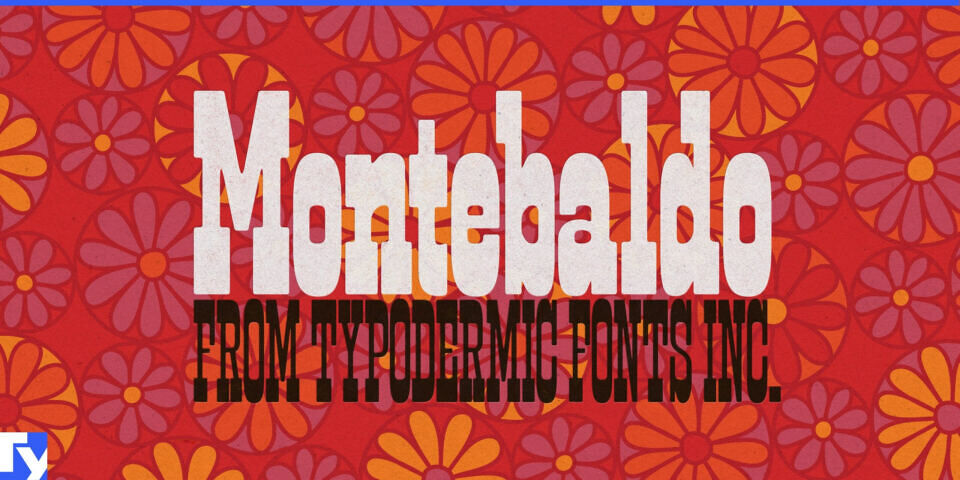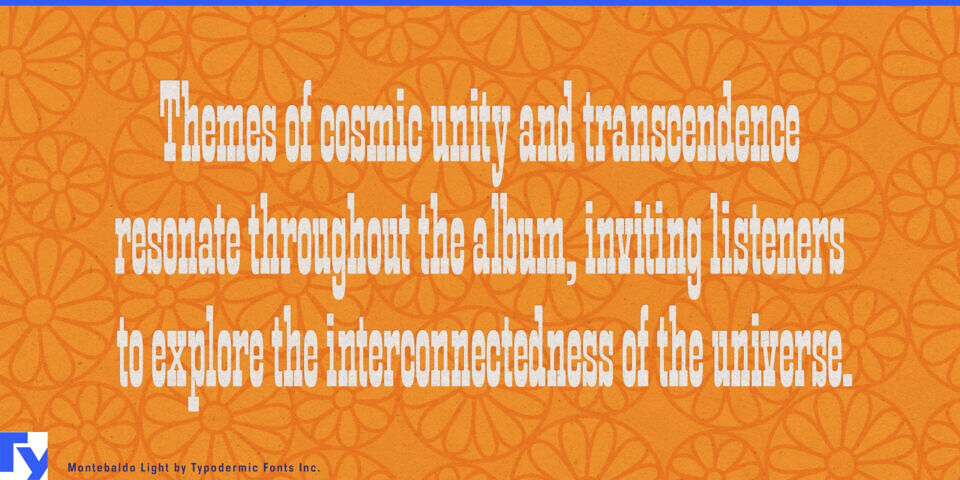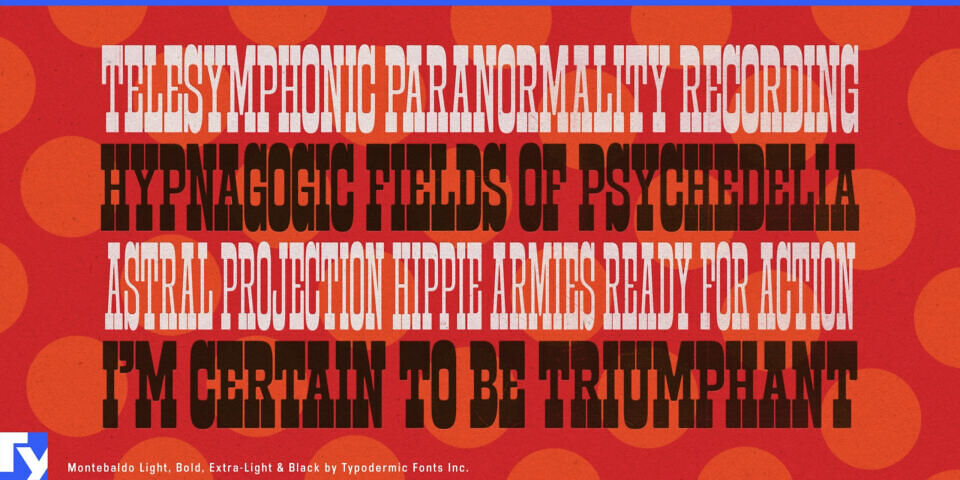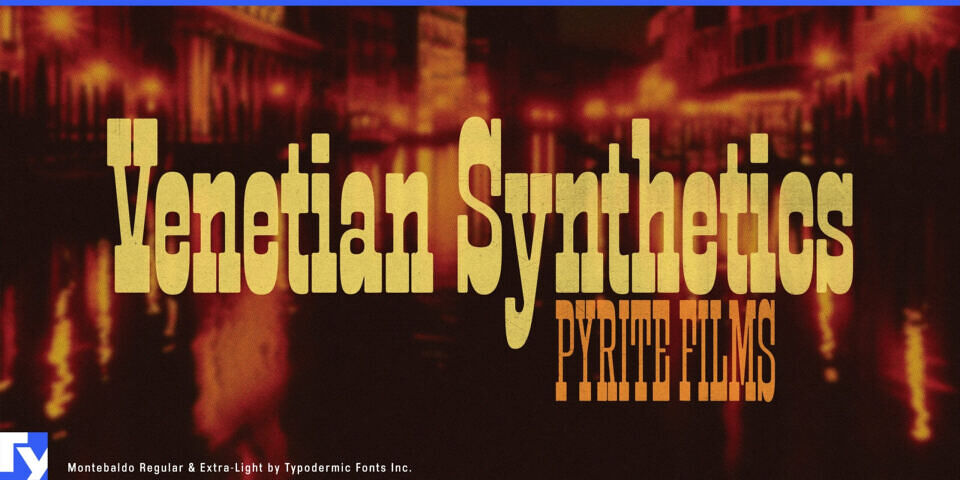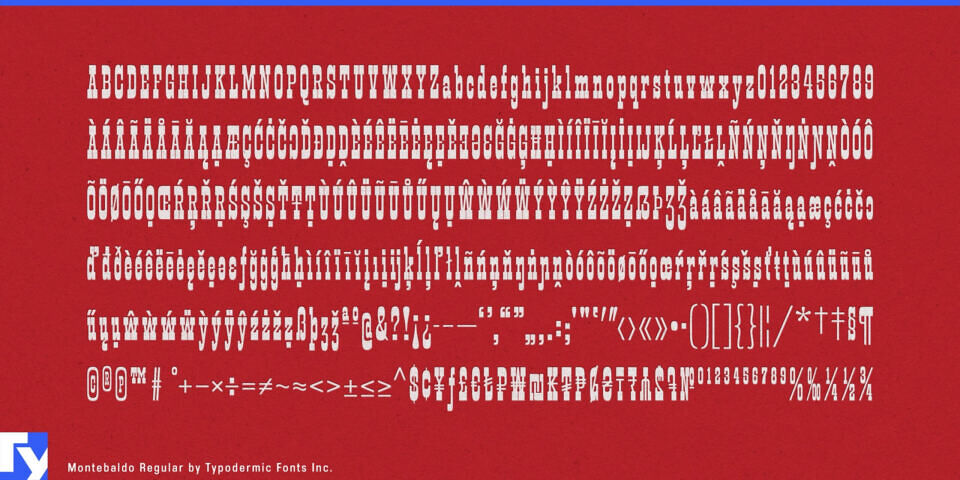
Montebaldo is an inverse slab serif that channels the cinematic flair of the 1960s. Beefy serifs, ultra-tight spacing, and condensed proportions echo the look of vintage photo-typesetting and dry-transfer lettering, bringing a touch of analog drama to modern layouts.
Its bold shapes and softened corners keep headlines crisp and expressive, making it ideal for film titles, retro posters, branding, and other display work that calls for glamour with a hint of nostalgia.